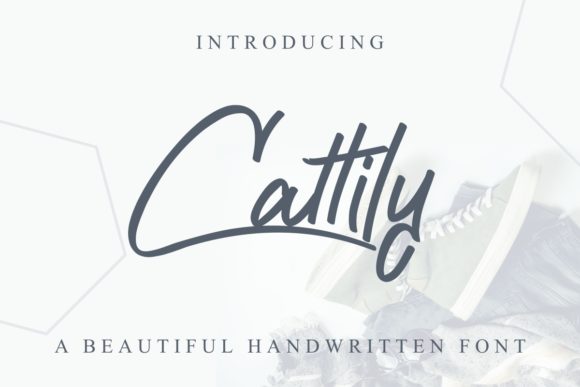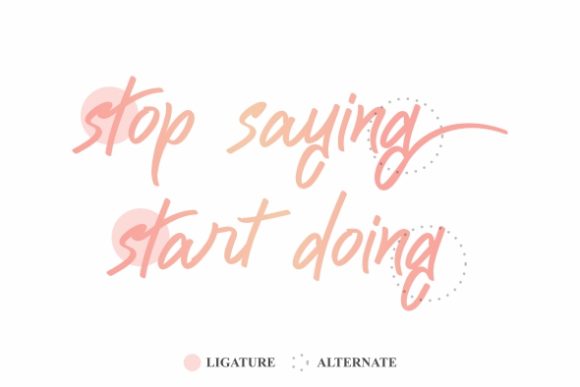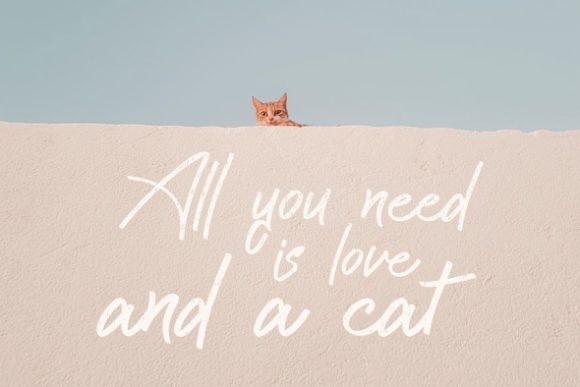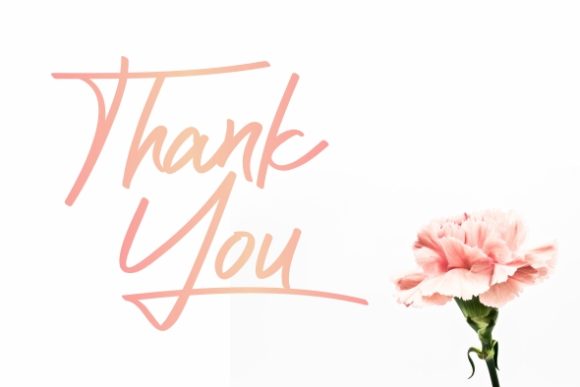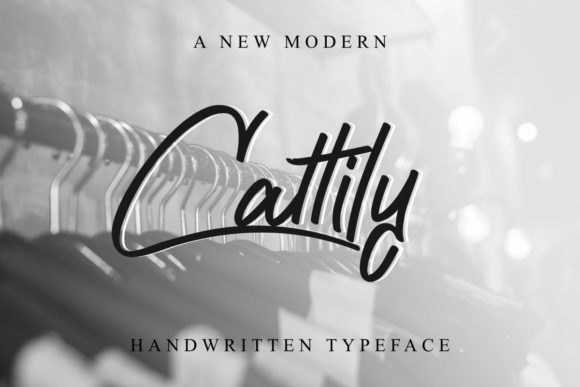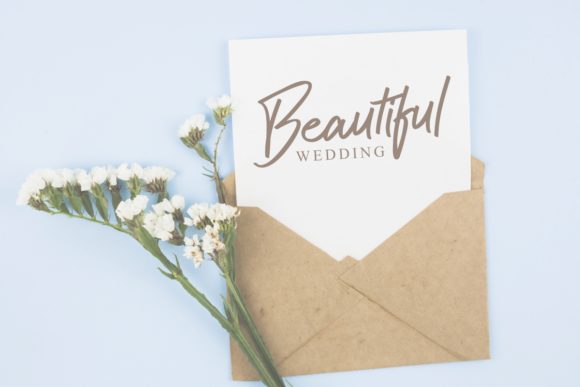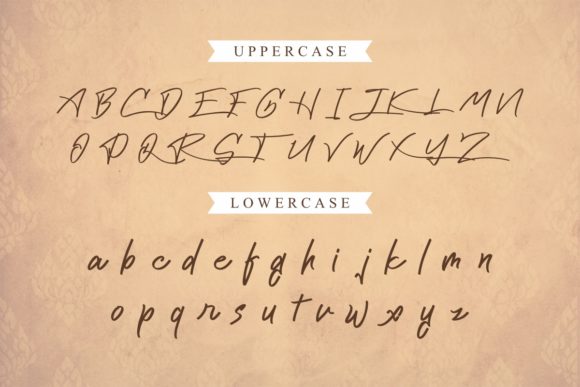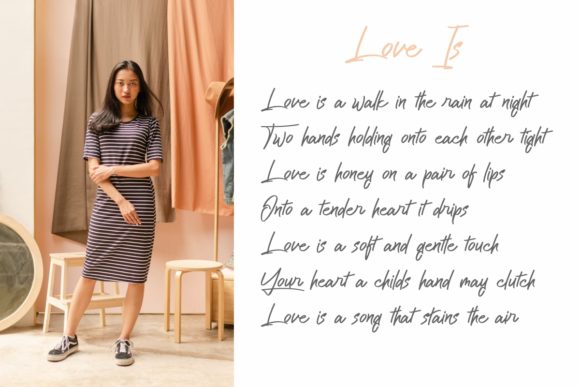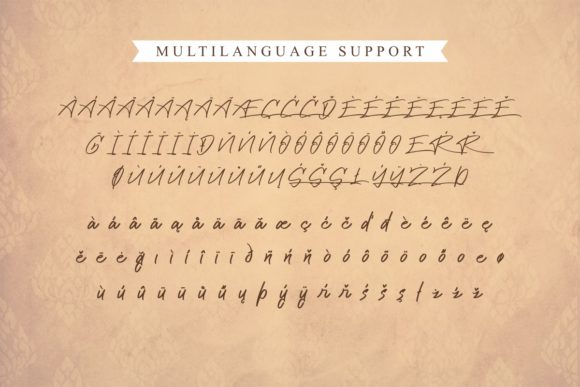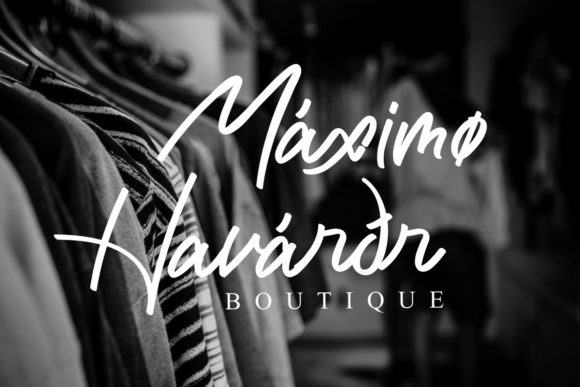
HomeScript FontsCattily Font Script Fonts Cattily Font FacebookXPinterestWhatsApp Cattily Font Poster 2 Cattily Font Poster 3 Cattily Font Poster 4 Cattily Font Poster 5 Cattily Font Poster 6 Cattily Font Poster 7 Cattily Font Poster 8 Cattily Font Poster 9 Cattily Font Poster 10 Cattily Font Poster 11 Cattily Font Poster 12 About Cattily Font Cattily is a casual script font with cool style. It is perfectly suited for a wide variety of designs! DOWNLOAD ON CREATIVE FABRICAThis font is sold and delivered by Creative Fabrica. Font Canyon may earn a commission if you buy through this link. People also explored Brownis Cake Font Gemeenskap Font Chocolate Chocodrink Font Wootter Merry Deer Font Myfrida Shadow Font Revelyna Font Random Luck Font Monaco Font 323 0 TagsCattily Font Previous articleSillmy FontNext articleJuliant Font LEAVE A REPLY Cancel reply Comment: Please enter your comment! Name:* Please enter your name here Email:* You have entered an incorrect email address! Please enter your email address here Website: Save my name, email, and website in this browser for the next time I comment. Personal Use Free The 10 Best Handwriting Fonts to Add Personality to Your Designs Blog Read more about this font Dacquoise Personal Use Free Read more about this font Cataclysmo Personal Use Free Read more about this font Mandarins Personal Use Free Read more about this font BLOG To increase your work productivity, choose the most readable fonts. In today's fast-paced work environment, where digital communication and information consumption are integral to our daily routines, the choice of fonts can significantly impact... Top 7 Google Fonts Alternatives for Faster and Privacy-Friendly Web Design (2025) Free vs Paid Fonts: Why Investing in Premium Fonts Is Worth It Fonts That Capture the Spirit of New York City